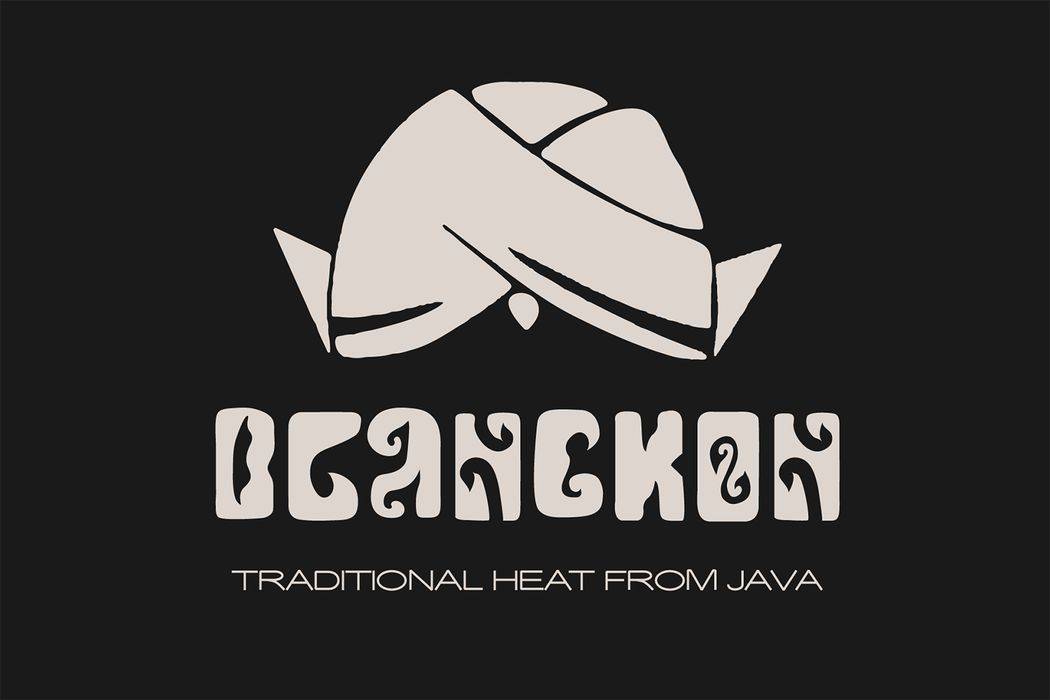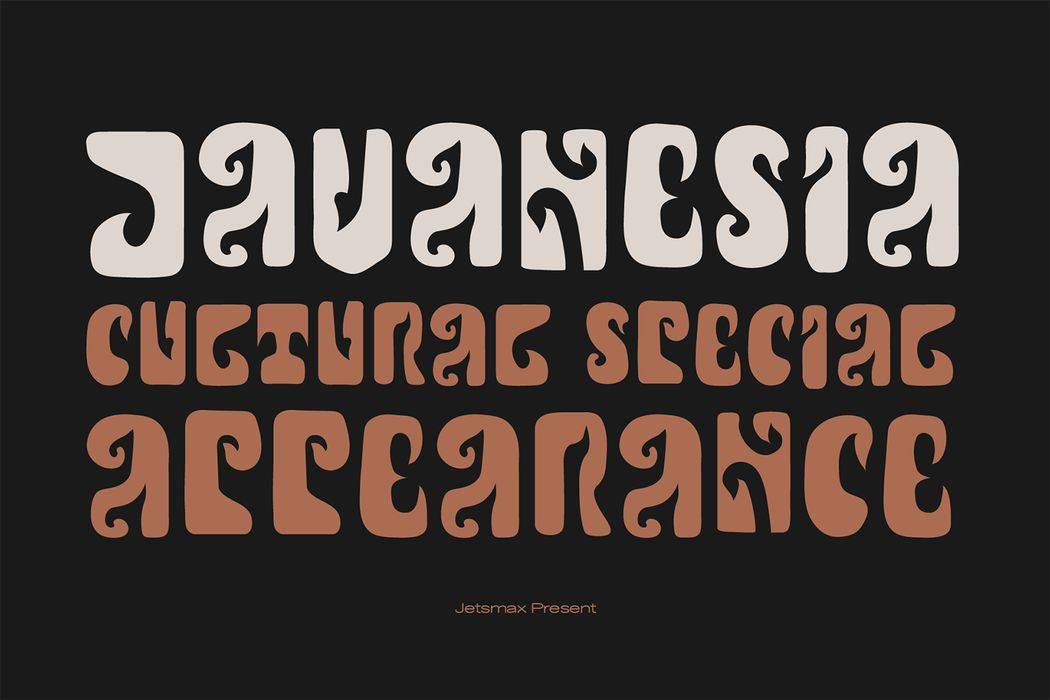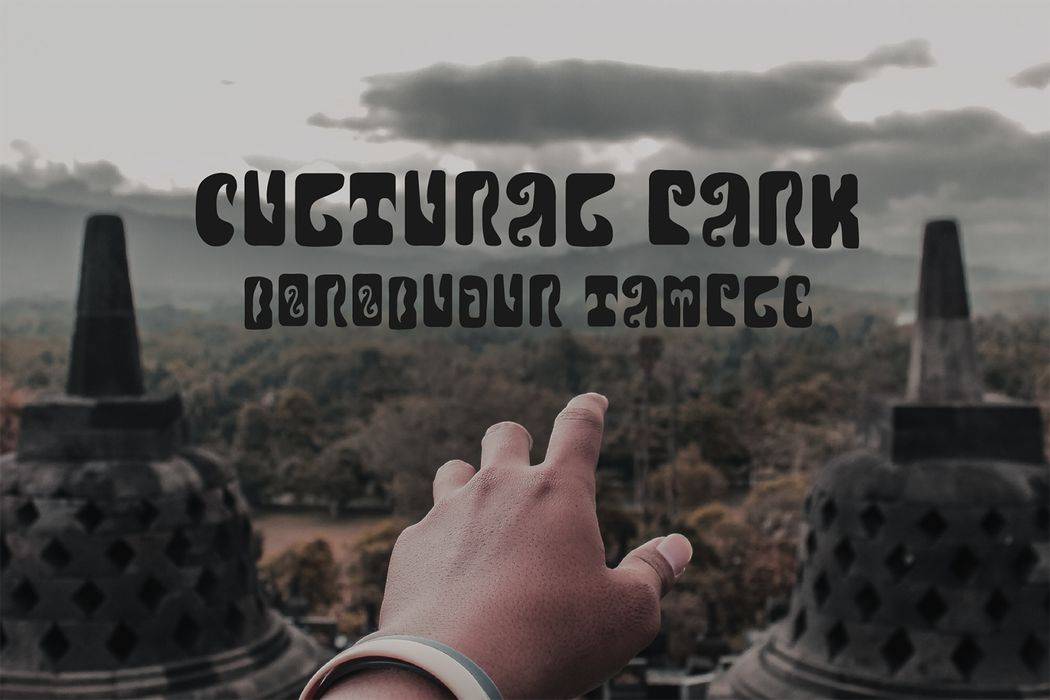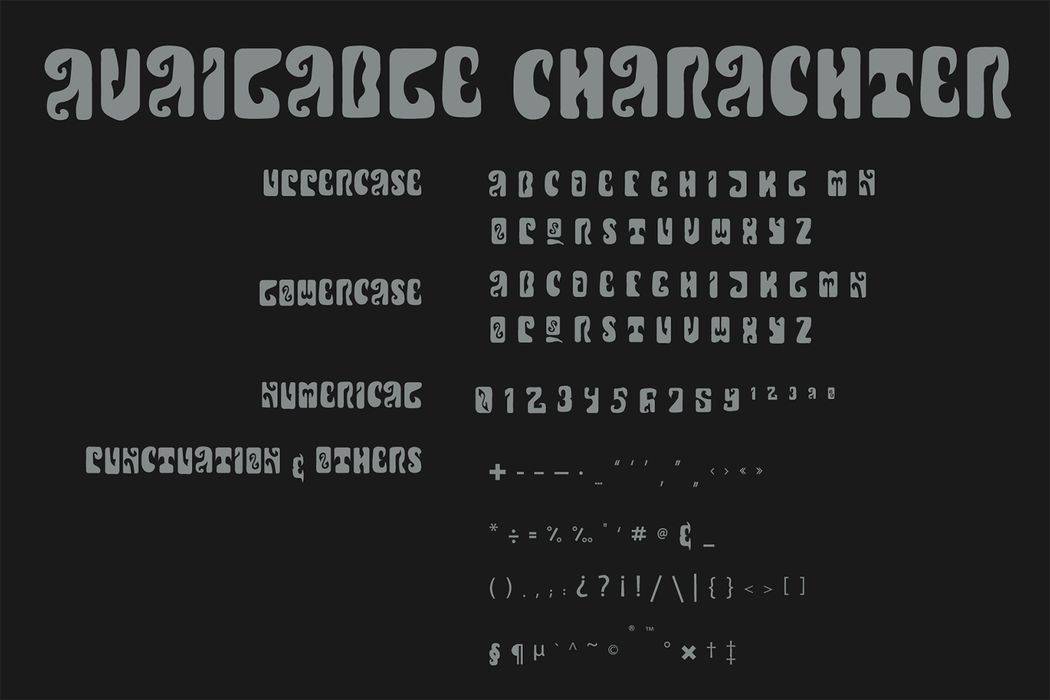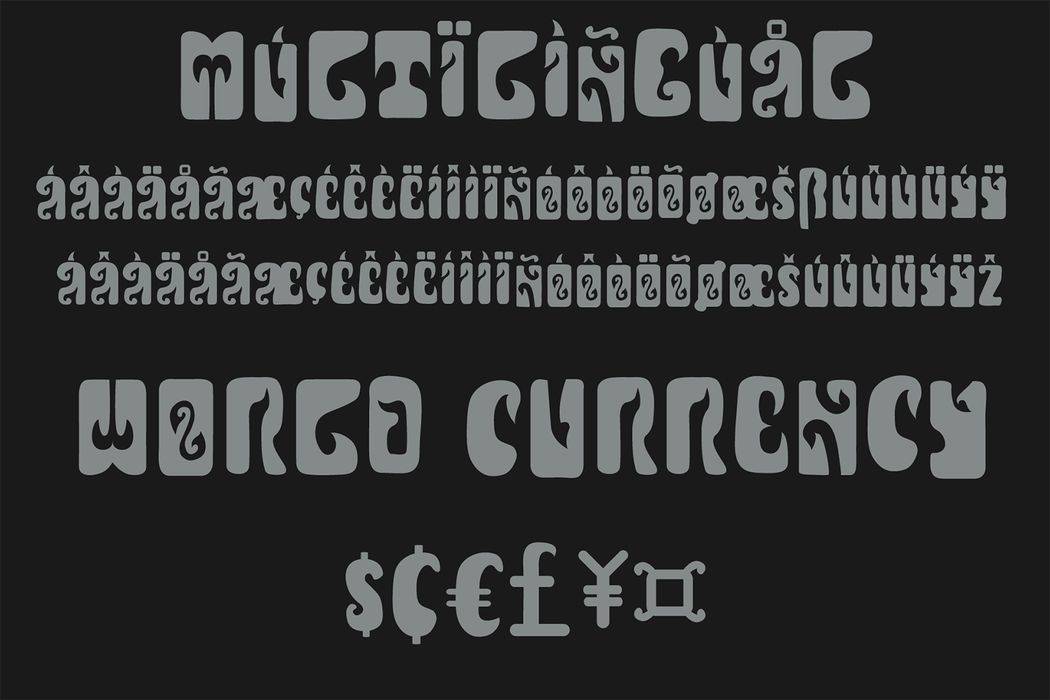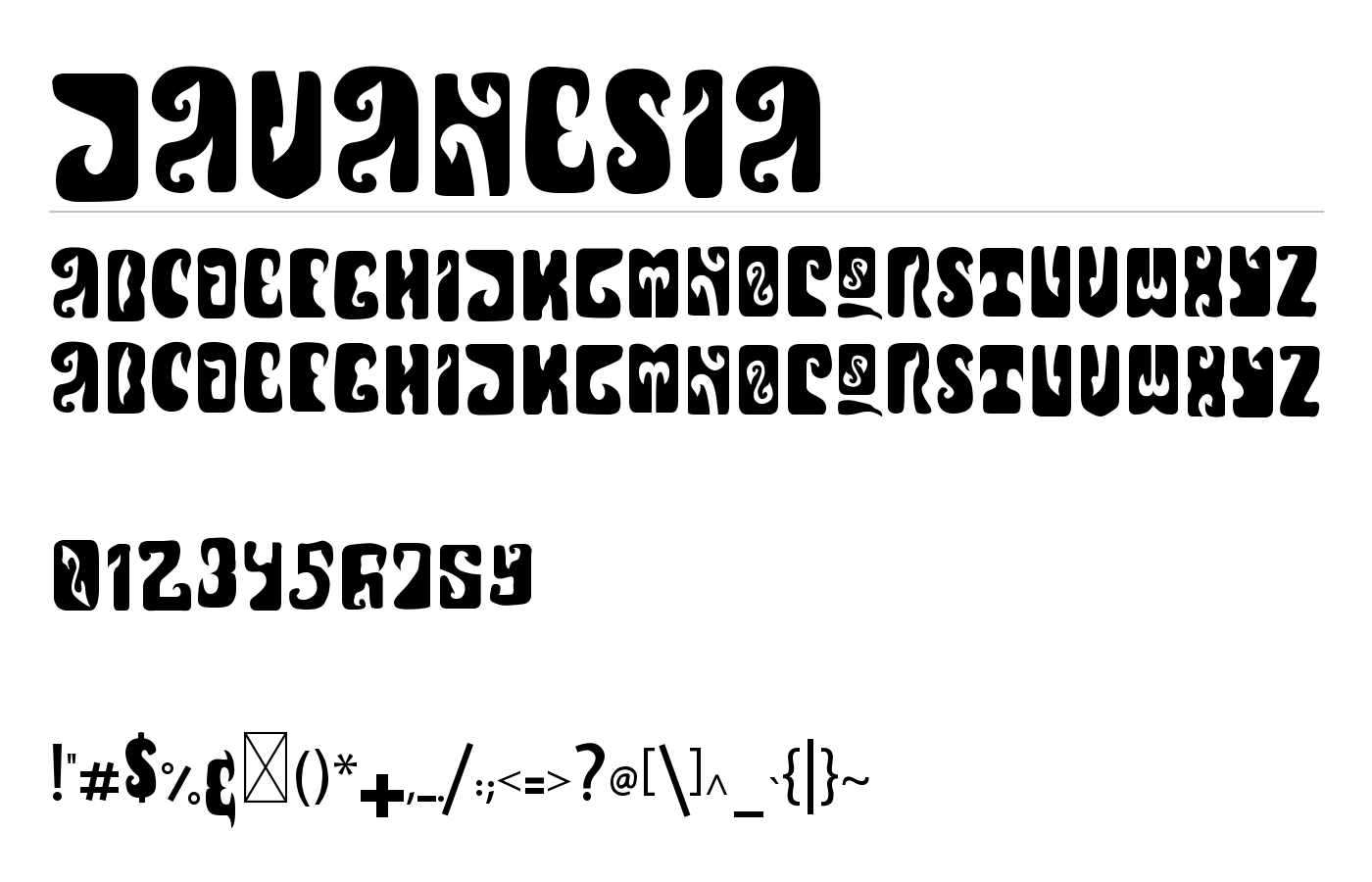
Javanesia is a bold and whimsical display font featuring thick, solid letterforms with organic, swirling cutouts that evoke a playful yet mysterious vibe. Its strong presence and unique shapes make it ideal for eye-catching headlines, logos, or creative projects that want to convey a fun and artistic mood with a touch of exotic flair. This font works best where decorative impact is key, especially in branding or poster designs that celebrate individuality and style.
Javanesia Font
About Javanesia Font
| Font family | Javanesia Font |
| Designer | Khairil Anwar |